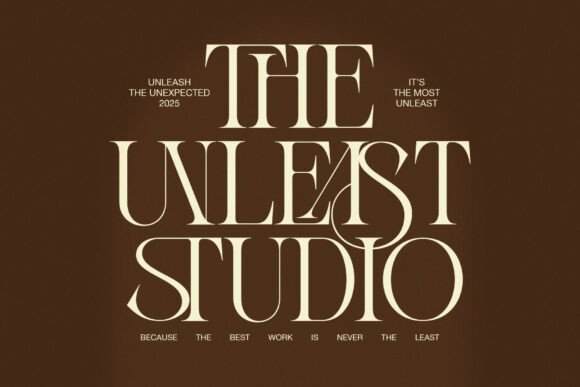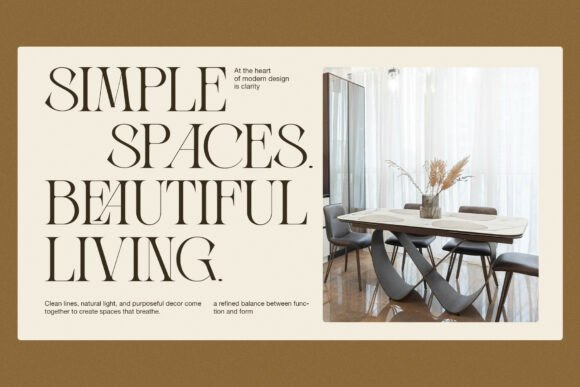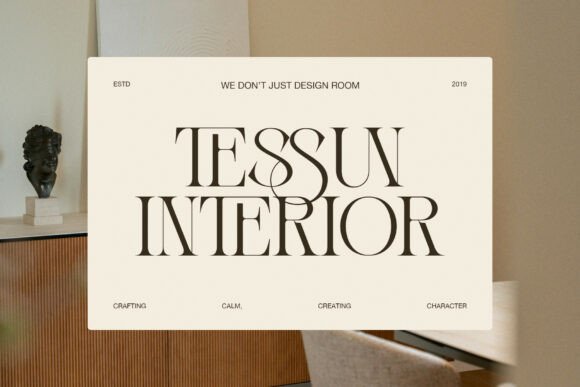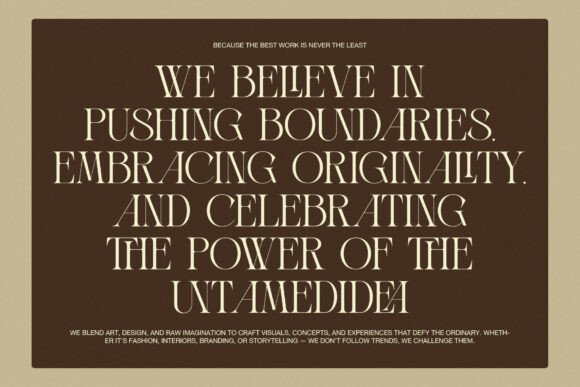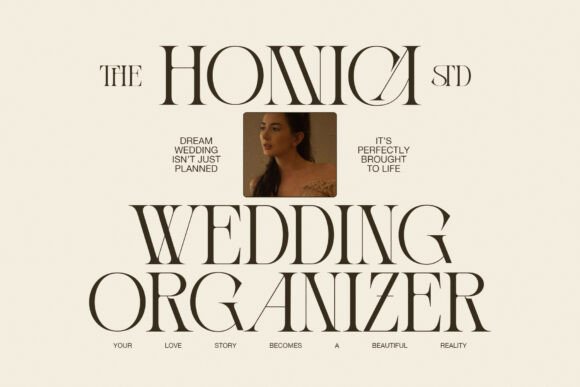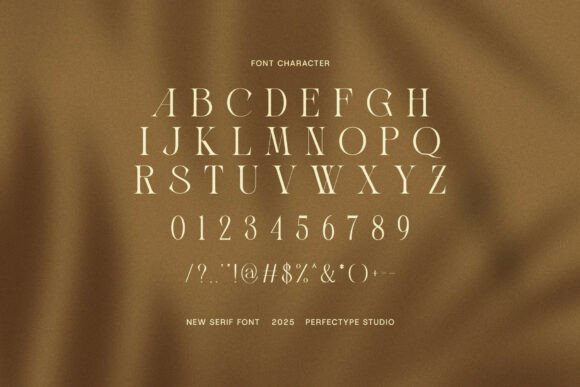
Amsio Elegant Serif Font: Elevate Your Designs with Sophistication and Elegance
In the world of typography, a well-crafted font can make all the difference in elevating your designs from ordinary to extraordinary. Introducing Amsio Elegant Serif Font, a sophisticated and contemporary serif typeface designed to add a refined touch to your creative projects. With its proportional shapes, this font provides balanced and harmonious letterforms that suit every branding need, making it an ideal choice for designers and businesses looking for a reliable and elegant font.
Unparalleled Elegance and Versatility
Amsio Elegant Serif Font is characterized by its modern yet timeless style, which ensures that your designs remain fresh and stylish while maintaining a classic serif charm. Its versatile design adapts well across various mediums, making it perfect for a wide range of applications, including branding, advertising, boutique promotions, and even food industry labels. Whether you’re working on logos, websites, magazines, or product packaging, Amsio delivers clarity and elegance, enhancing your design’s overall impact.
Functional Ligatures for Enhanced Readability
One of Amsio’s standout features is its functional ligatures, which create smooth connections between letters. This not only improves readability but also brings a polished, professional look to your typography. The ligatures ensure that your text flows seamlessly, making it easier to read and more visually appealing. This feature is particularly useful for designers who want to create high-end branding materials that exude sophistication and refinement.
Crafted for Designers and Businesses
Amsio Elegant Serif Font is crafted to meet the demands of designers and businesses looking for a reliable, elegant, and high-quality font. Its sophisticated design makes it an ideal choice for creative professionals who want to add a touch of luxury to their designs. Whether you’re working on a branding project, advertising campaign, or editorial design, Amsio provides the perfect typography solution.
Key Features of Amsio Elegant Serif Font
- Sophisticated and contemporary serif typeface: Amsio’s elegant design makes it perfect for high-end branding and design projects.
- Proportional shapes: The font’s balanced and harmonious letterforms ensure that your designs look refined and polished.
- Functional ligatures: Amsio’s ligatures create smooth connections between letters, improving readability and adding a professional touch to your typography.
- Versatile design: The font adapts well across various mediums, making it perfect for branding, advertising, boutique promotions, and more.
- Modern yet timeless style: Amsio’s design ensures that your designs remain fresh and stylish while maintaining a classic serif charm.
Why Choose Amsio Elegant Serif Font?
With so many fonts available, why choose Amsio Elegant Serif Font? Here are just a few reasons why Amsio stands out from the rest:
- Unique and distinctive design: Amsio’s elegant serif design sets it apart from other fonts, making it perfect for designers who want to create unique and memorable branding materials.
- High-quality typography: Amsio’s functional ligatures and proportional shapes ensure that your typography is of the highest quality, making it perfect for high-end branding and design projects.
- Versatility: Amsio adapts well across various mediums, making it a versatile font that can be used for a wide range of applications.
- Easy to read: Amsio’s design prioritizes readability, making it perfect for body text and other applications where legibility is crucial.
In conclusion, Amsio Elegant Serif Font is a sophisticated and contemporary serif typeface that is perfect for designers and businesses looking for a reliable, elegant, and high-quality font. Its functional ligatures, proportional shapes, and versatile design make it an ideal choice for a wide range of applications, from branding and advertising to editorial design and packaging. With Amsio, you can elevate your designs to new heights and create stunning typography that leaves a lasting impression.